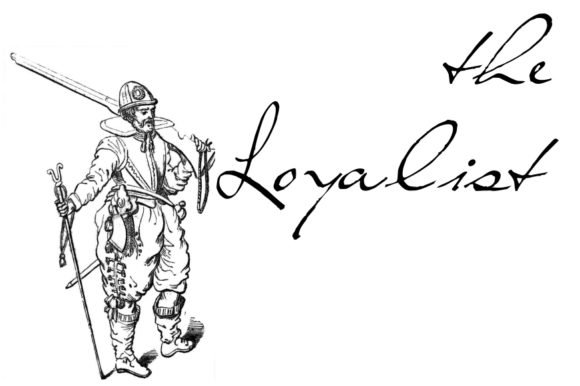
The Loyalist Font
About The Loyalist Font
The Loyalist is a stunning script font, perfect for use in a wide range of elegant and bookish designs. This font has a handwritten appeal to it, but with precision and maturity so it gives off a rather regal feel.